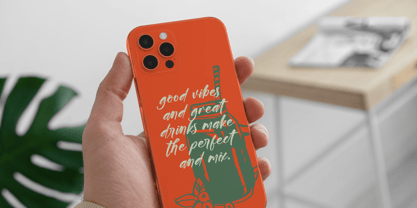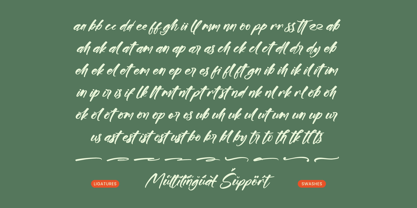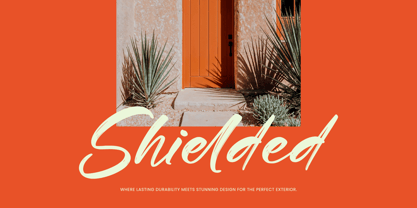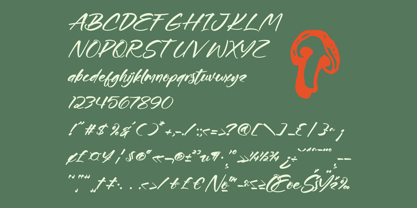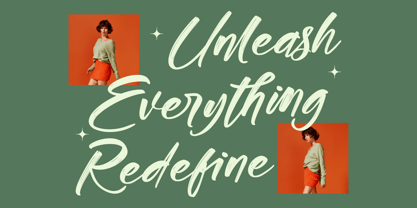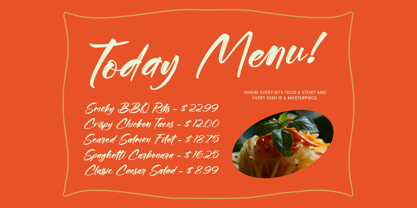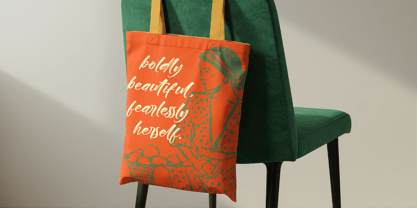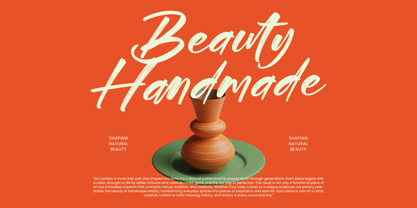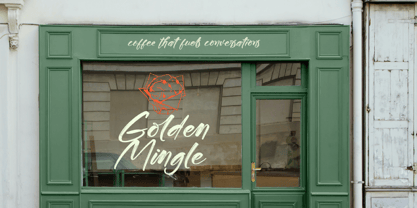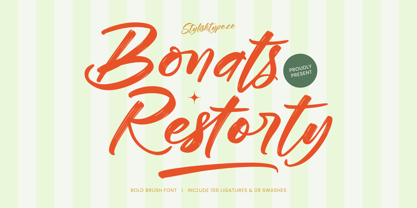
Bonats Restorty
Bonats Restorty is a bold brush script font designed with expressive strokes and energetic handwritten movement. Inspired by natural brush lettering, the typeface captures the raw texture and dynamic flow of real brush pen writing. The strong brush shapes and sweeping curves give this font a lively and artistic character. Each letter is crafted to create a natural handwritten rhythm, making it perfect for bold headlines and expressive typography. Bonats Restorty includes a large collection of ligatures and decorative swashes that help create smooth connections between letters. These stylistic features allow designers to produce beautiful lettering compositions with a natural brush aesthetic. The font works perfectly for creative projects that require bold personality and handcrafted visual impact.